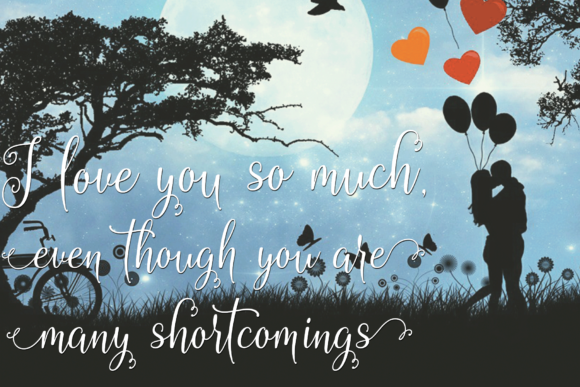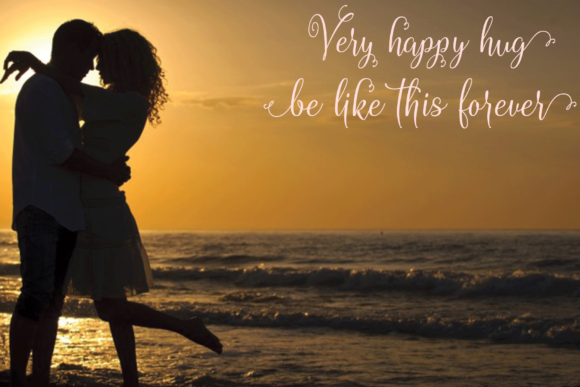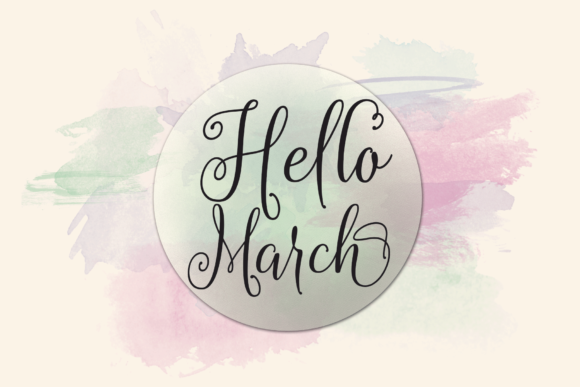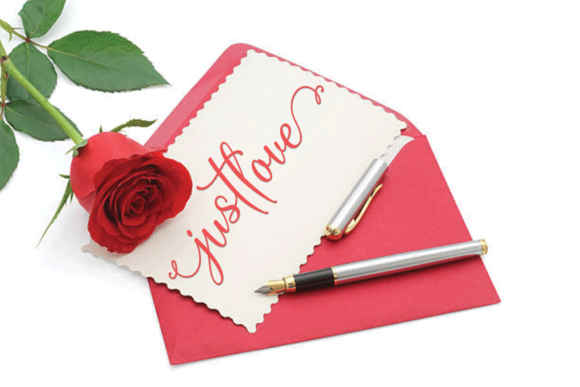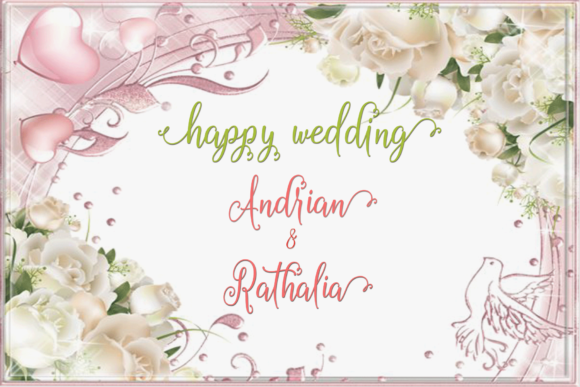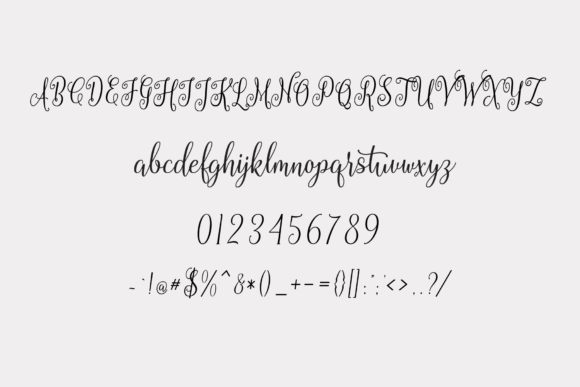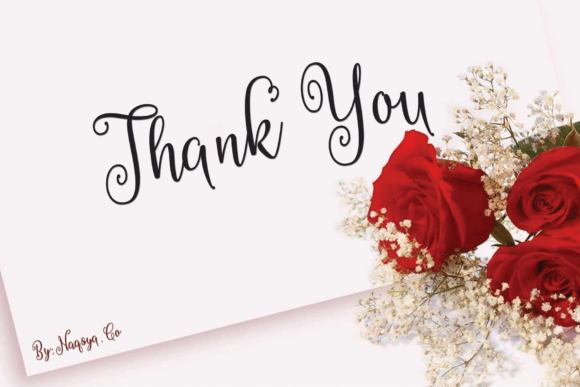
Camelia Font
About Camelia Font
The Camelia is a modern calligraphy font. It includes modern and unique forms of calligraphy and is perfect for adding a natural touch to your designs.